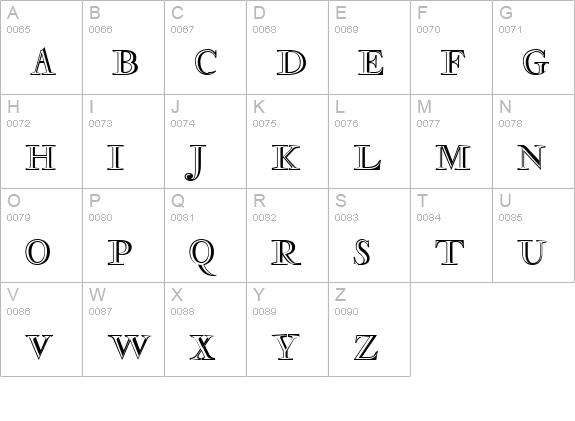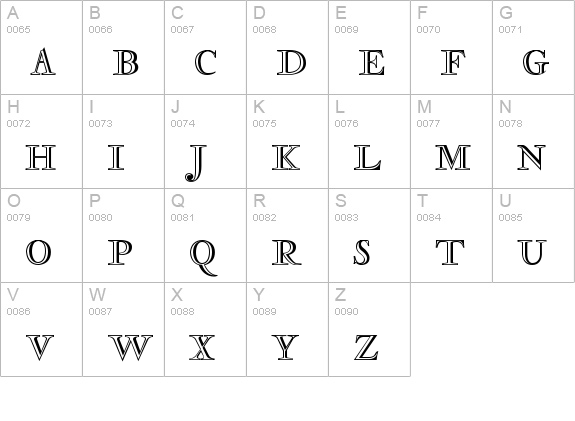
Introducing Rosart font, a beautiful and elegant typeface that exudes sophistication and charm. With its graceful curves and refined details, Rosart is perfect for adding a touch of class to any design project. This versatile font is suitable for a wide range of applications, from branding and packaging to invitations and signage. What sets Rosart font apart is not just its timeless design, but also the fact that it is available for free download at FontsMarket.com. Yes, you read that right - you can access this premium font without any cost! So go ahead and elevate your projects with the exquisite beauty of Rosart font, now at your fingertips for free.